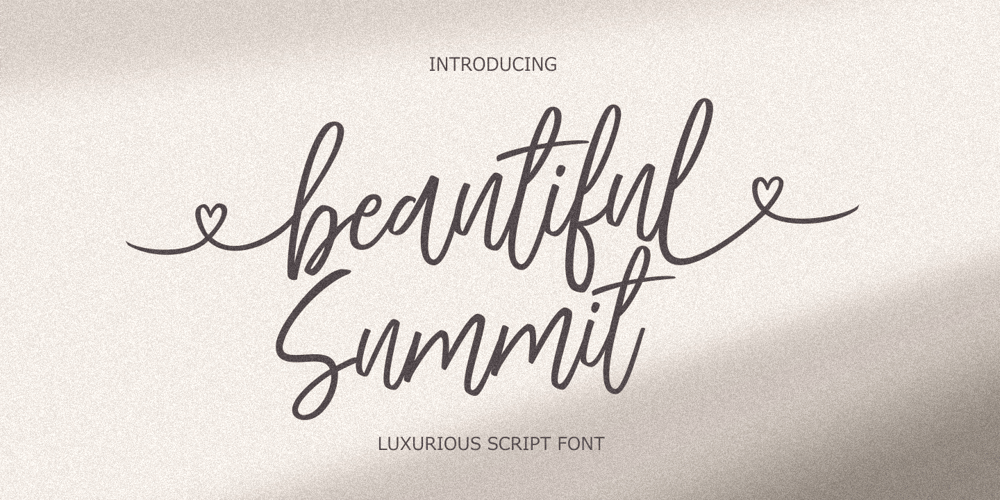
Beautiful Summit Font Family was designed by Dede Mulyadi and published by HRDR. Beautiful Summit contains 1 styles and family package options. Beautiful Summit is a modern calligraphy font with handwritten.It is full of hearts and glyphs, suitable for branding, wedding invitations, and other romantic projects.Beautiful Summit includes a full set of lovely uppercase and lowercase letters, multilingual symbols, numerals, punctuation and ligatures. Beautiful Summit coming with open type features like stylistic set 01- stylistic set 02 and support PUA Encoded font files for use with software that doesn’t support OpenType features such as Silhouette, Inkscape, etc.